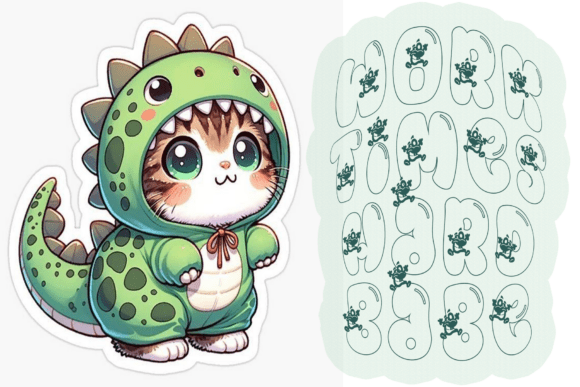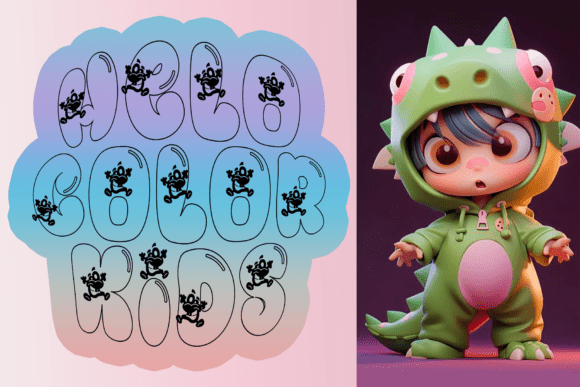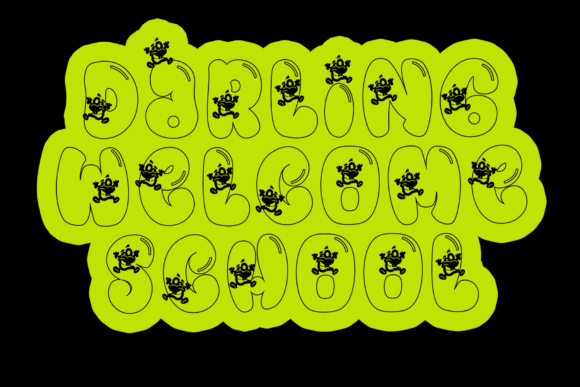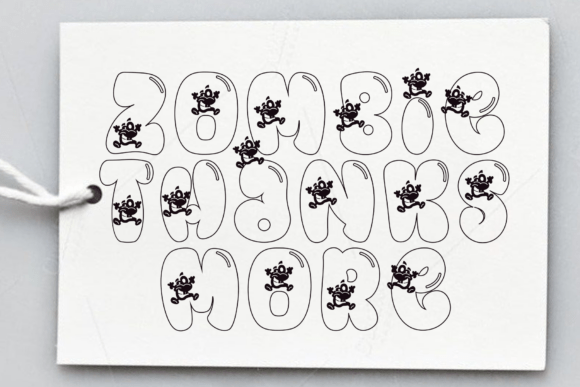
Cute Alien Font: The Ultimate Guide to Adding Whimsy to Your Designs
Are you looking for a font that will add a touch of playfulness and imagination to your designs? Look no further than the Cute Alien Font! This delightful decorative font is perfect for designers, crafters, and anyone looking to add a dash of whimsy to their projects.
What is Cute Alien Font?
Cute Alien Font is a unique and imaginative typeface that combines playful bubble letterforms with fun alien character accents. Designed to capture attention with its cartoon-like aesthetic, this font is ideal for a variety of design projects, including children’s content, comics, space-themed designs, party invitations, and digital artwork.
Key Features of Cute Alien Font
- Playful Bubble Letterforms: The font features rounded, oversized letter shapes that create a soft and approachable tone, perfect for designs that require a friendly and youthful feel.
- Fun Alien Character Accents: The font includes embedded alien illustrations that add personality and storytelling potential to your designs.
- Cartoon-Like Aesthetic: The font’s playful and imaginative design makes it perfect for projects that require a bold and eye-catching look.
Best Uses for Cute Alien Font
Cute Alien Font works best in large display settings, making it a creative tool for projects that call for bold expression and youthful energy. Here are some of the best uses for this delightful font:
- Children’s Content: The font is perfect for designing children’s books, educational materials, and activity sheets.
- Comics and Graphic Novels: The font’s playful and imaginative design makes it ideal for comic book titles, captions, and speech bubbles.
- Space-Themed Designs: The font’s alien accents and space-themed illustrations make it perfect for designing posters, flyers, and brochures for space-themed events or products.
- Party Invitations: The font’s playful and whimsical design makes it perfect for designing party invitations, banners, and decorations.
- Digital Artwork: The font can be used to add a touch of personality and whimsy to digital artwork, such as illustrations, animations, and videos.
Tips for Using Cute Alien Font
Here are some tips for getting the most out of Cute Alien Font:
- Use it in Large Display Settings: The font works best in large display settings, so use it for titles, headings, and captions.
- Experiment with Colors and Textures: The font’s playful design makes it perfect for experimenting with different colors and textures.
- Combine it with Other Fonts: The font can be paired with other fonts to create a unique and eye-catching look.
Cute Alien Font is a unique and imaginative decorative font that is perfect for designers, crafters, and anyone looking to add a dash of whimsy to their projects. With its playful bubble letterforms, fun alien character accents, and cartoon-like aesthetic, this font is ideal for a variety of design projects. Whether you’re designing children’s content, comics, space-themed designs, party invitations, or digital artwork, Cute Alien Font is sure to add a touch of personality and whimsy to your designs.